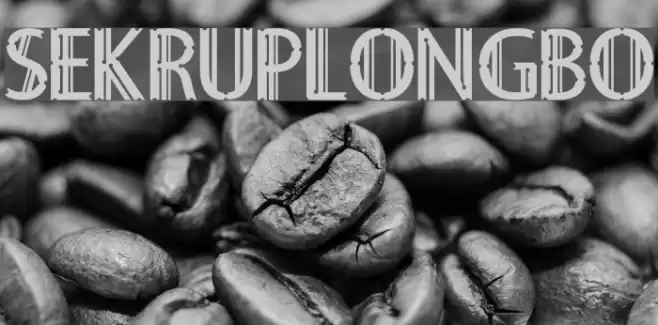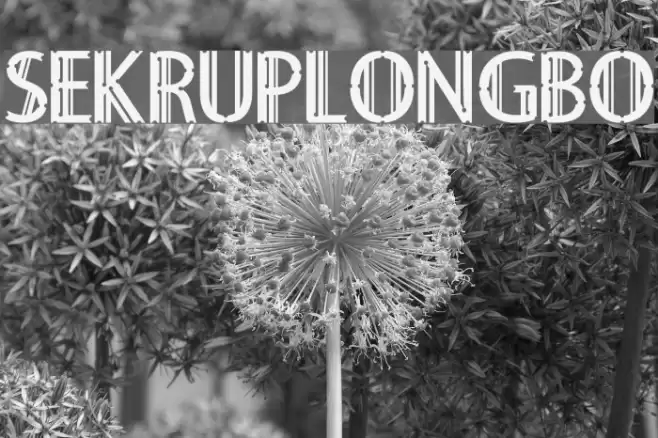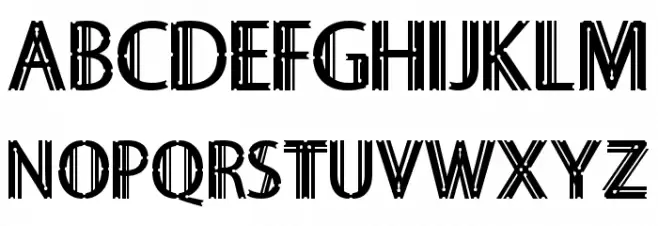
Sekruplongbo Font
Sekruplongbo Description
This font features a bold and geometric design with a distinct Art Deco influence. The characters are constructed with clean, straight lines and sharp angles, creating a sense of symmetry and balance. The use of vertical and horizontal lines within each letter adds a layered, dimensional effect, making the font stand out with a unique architectural feel. The uppercase letters are particularly striking, with their strong presence and clear readability. This font is ideal for creating a sophisticated and modern look, suitable for various design applications where a touch of elegance and style is desired.
A bold, geometric font with Art Deco influences and layered line details from Uncategorized fonts.
- Proposed Projects: Ideal for branding, posters, signage, and editorial design where a modern and sophisticated look is desired.
- Overall Style: Modern, Art Deco